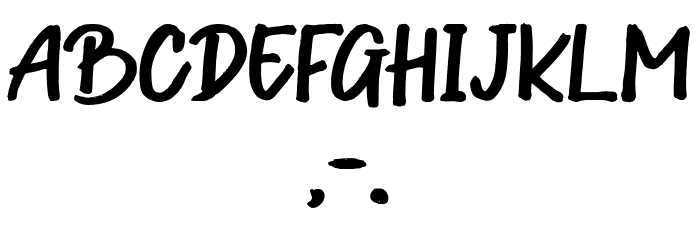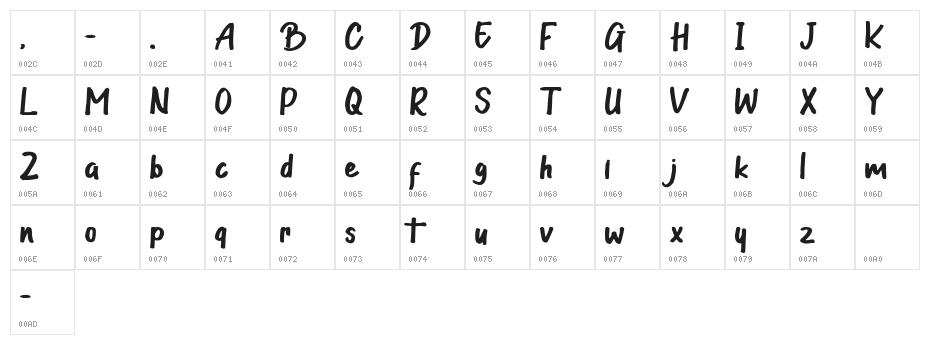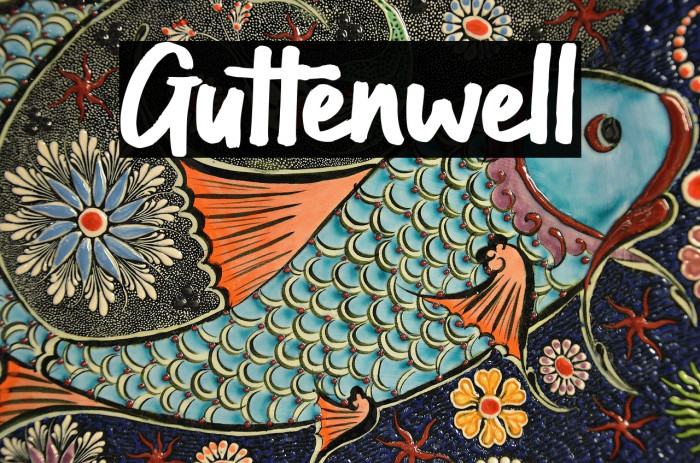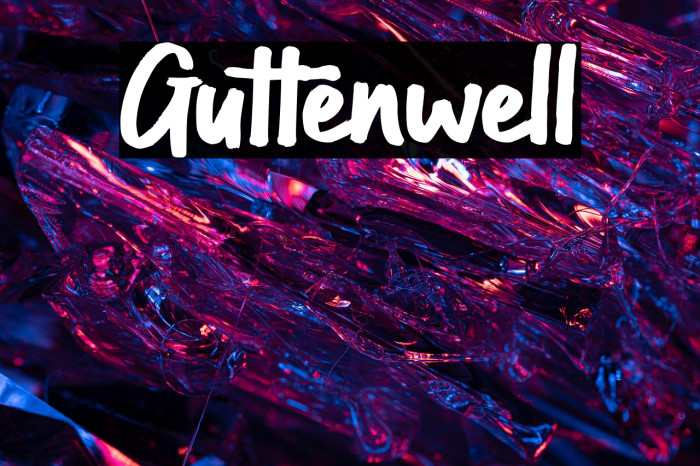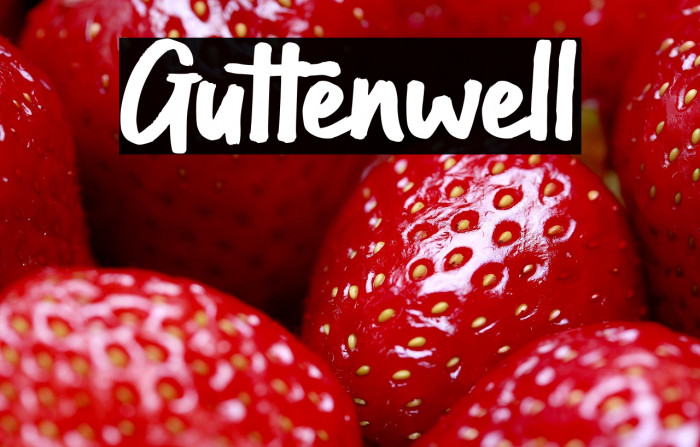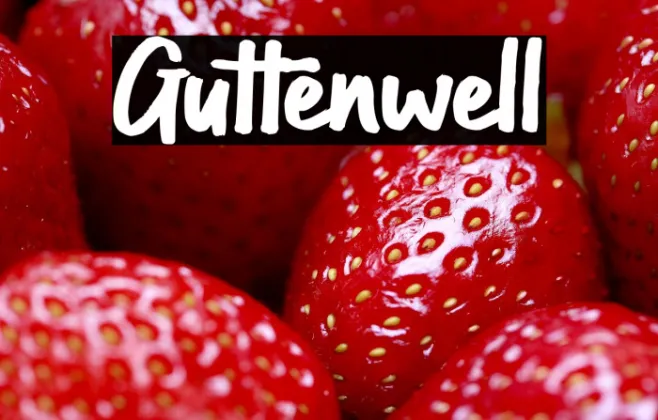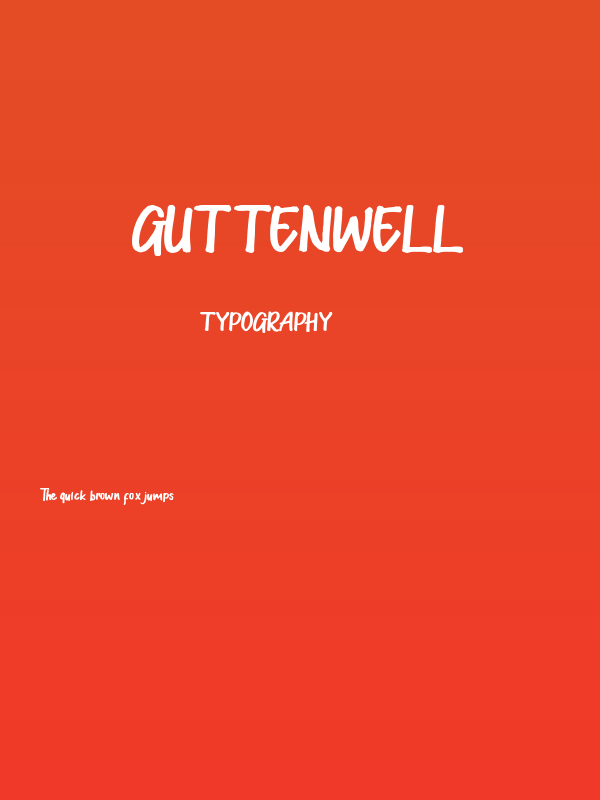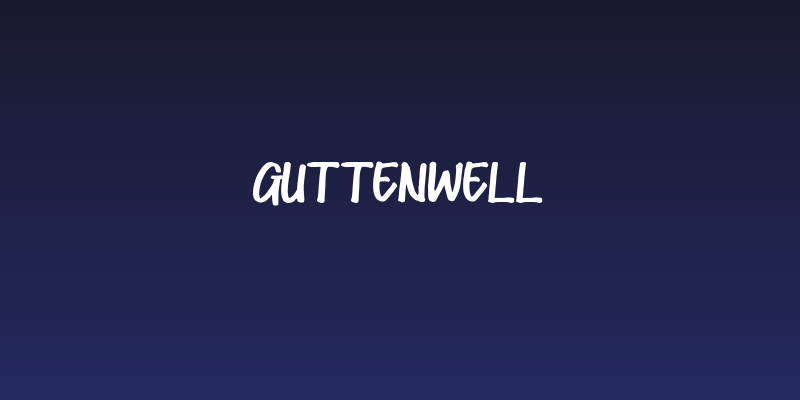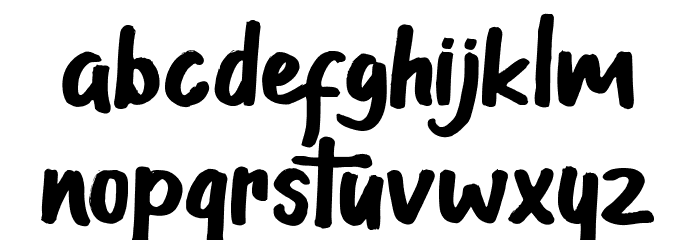
Guttenwell Font
Guttenwell Description
This font features a bold and expressive handwritten style, characterized by its fluid and dynamic strokes. The letters have a playful yet sophisticated appearance, with a slight slant that adds to their energetic feel. The uppercase and lowercase letters maintain a consistent style, with rounded edges and varying stroke widths that give a sense of movement and personality. The numbers and special characters are equally expressive, fitting seamlessly with the overall design. This font's unique style makes it stand out, offering a blend of casual elegance and artistic flair.
Use CaseLogos, Headlines, Invitations
Proposed ProjectsIdeal for branding projects, invitations, greeting cards, and social media graphics where a personal touch is desired.